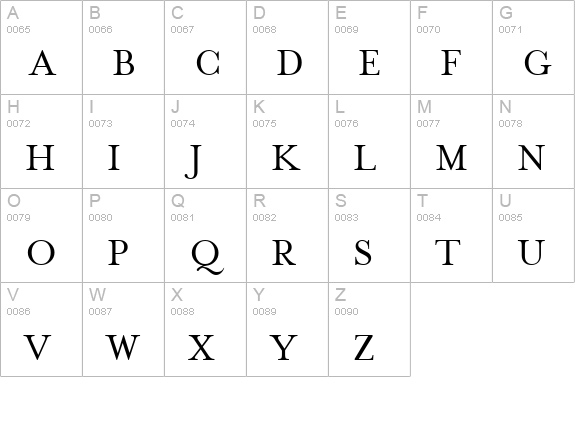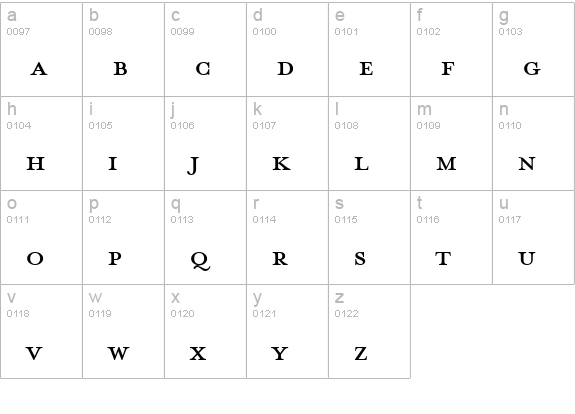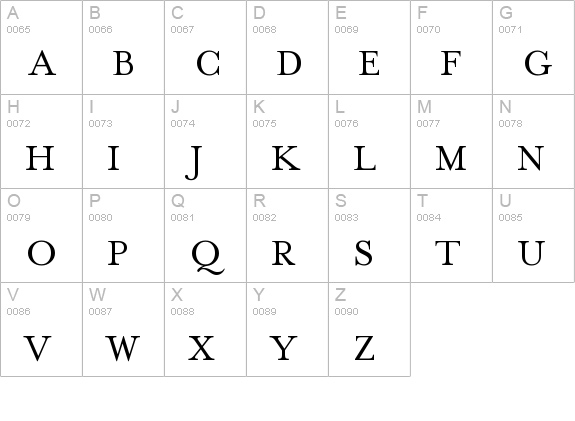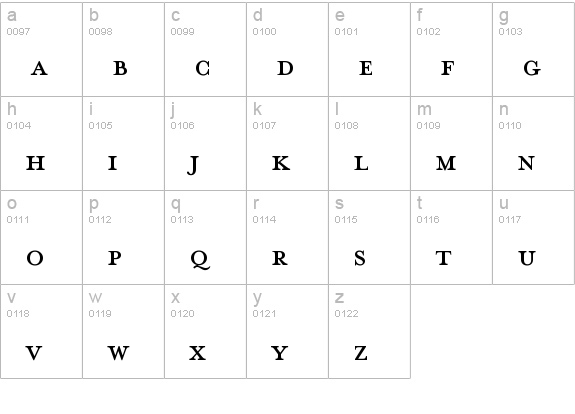
MrsEavesPetiteCaps Regular Font Details
MrsEavesPetiteCaps Regular is the standard, neutral variant in the MrsEavesPetiteCaps typeface family \xE2\x80\x94 well suited to general body text, paragraphs, and standard typographic work.
MrsEavesPetiteCaps Regular font is a timeless and elegant typeface that exudes sophistication and charm. With its delicate and refined letterforms, this font is perfect for adding a touch of class to any design project. The petite caps style adds a unique flair, making it stand out from other traditional serif fonts. What's even better is that MrsEavesPetiteCaps Regular font is available for free download at FontsMarket.com. This means you can easily access and use this beautiful font without any cost. Whether you're working on a wedding invitation, branding project, or any other creative endeavor, MrsEavesPetiteCaps Regular font will elevate your design with its classic yet modern aesthetic. Download it today and add a touch of sophistication to your next project.